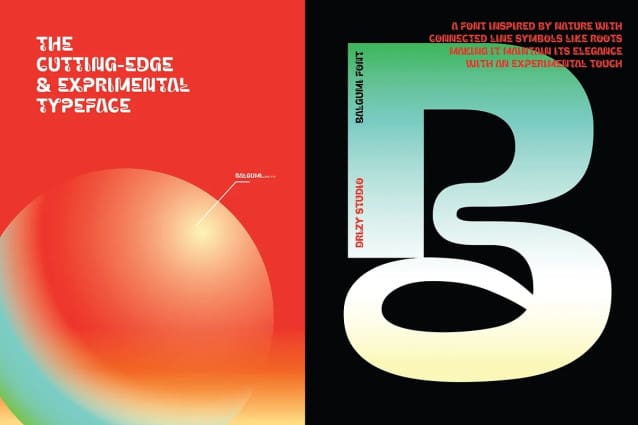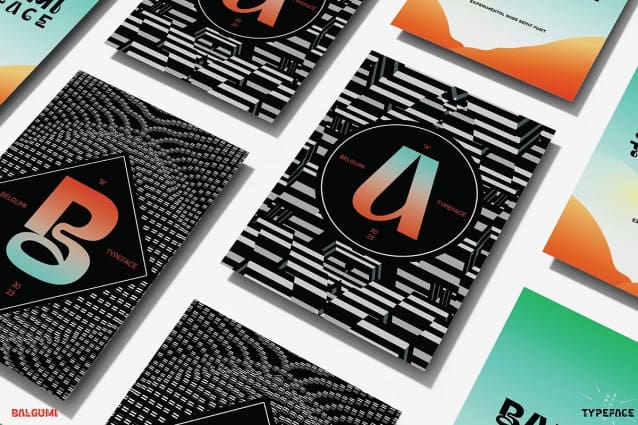
Balgumi Font
Balgumi Font, an experimental sans-serif font that challenges the ordinary and celebrates the extraordinary. Balgumi is not just a typeface; it’s a bold and creative statement for those who demand innovation in their design projects.
Elevate and explore the design possibilities with this experimental font!